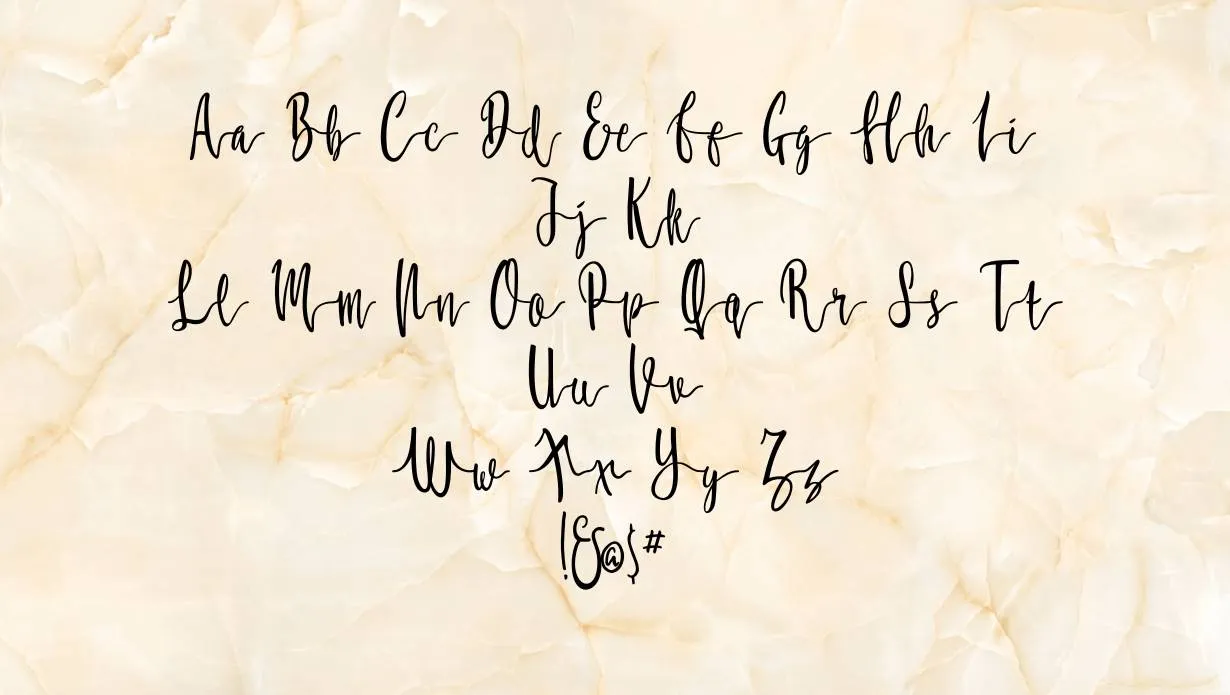
Molluca Script font exudes elegance and refinement with its beautifully flowing cursive style. The intricate loops and varying stroke thickness impart a sense of sophistication, making it the perfect choice for wedding invitations, greeting cards, or any project aiming for an upscale and graceful appearance.
This font adds a touch of grace and charm to the text, providing a sense of uniqueness and personality. Its delicate yet expressive design elevates the overall feel of any design it adorns, creating a sophisticated and polished look. Combining this typeface with the kaushan script font opens up the potential to create stunning displays.